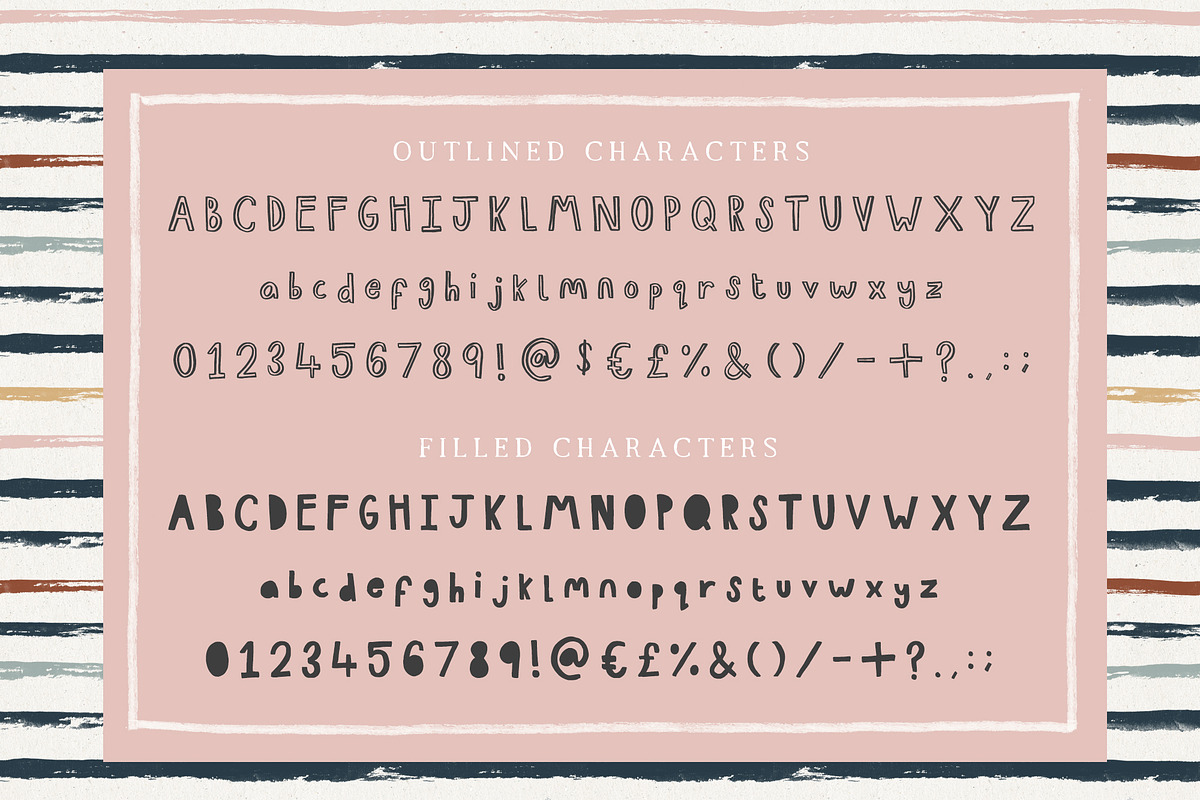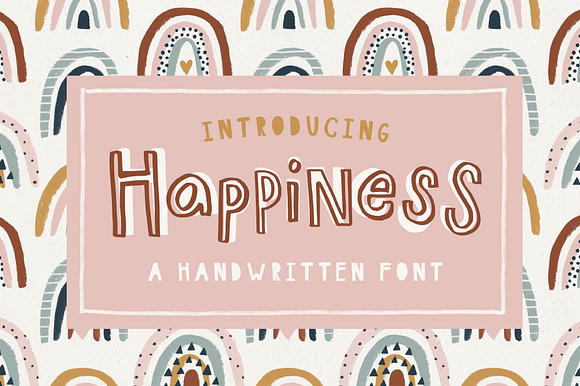
Happiness Handwritten Font
Happiness is a unique handwritten font created from my own handwriting. Its unique flow and easy signature style makes it perfect to use for logos, signatures, quotes, badges, labels, packaging design, blog headlines or simply use it in your next design project.
Happiness comes in two styles; outlined and filled. It comes with upper and lowercase Basic Characters, Numbers, Marks and Punctuation.